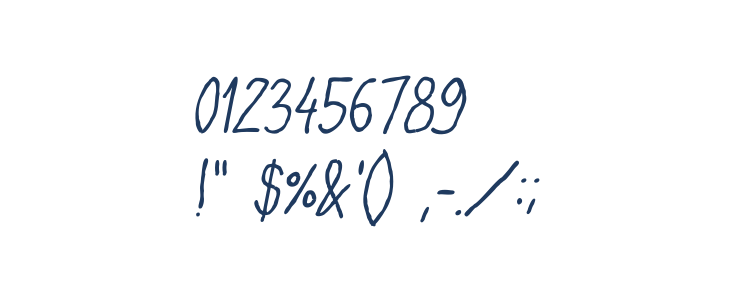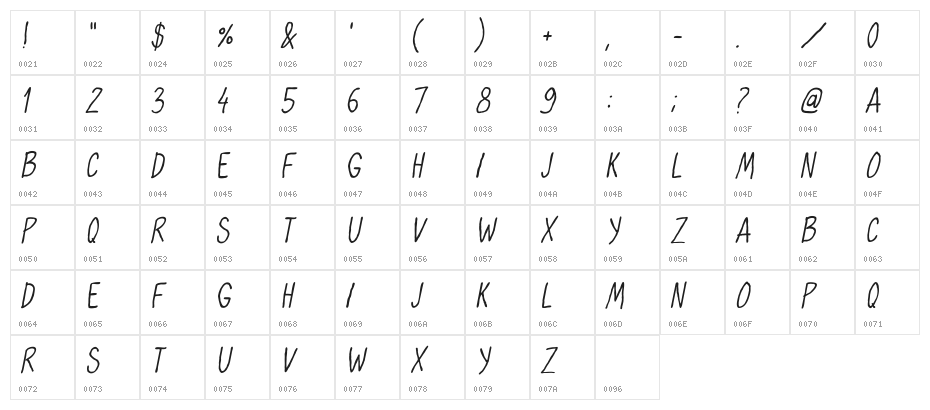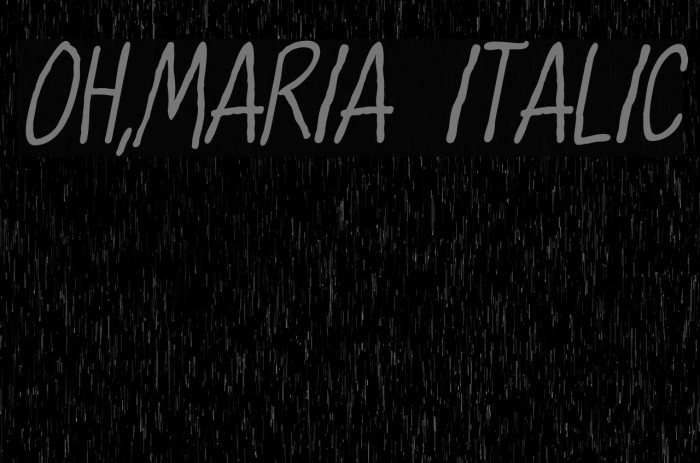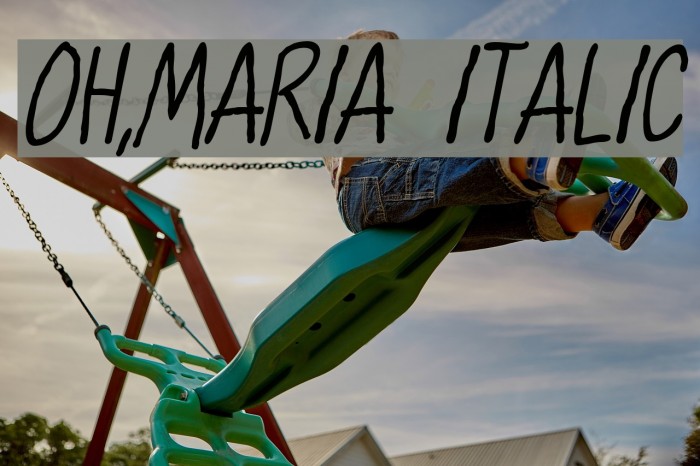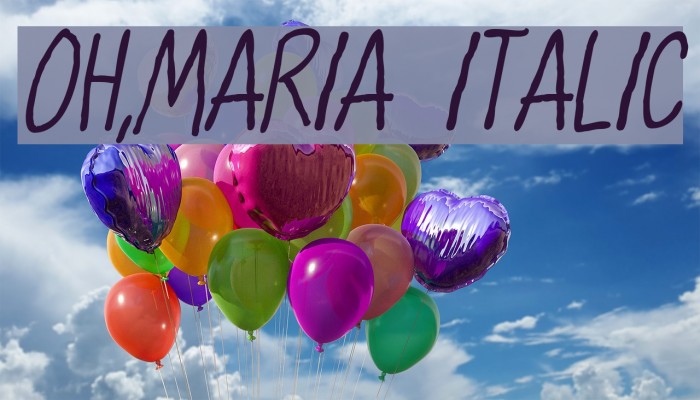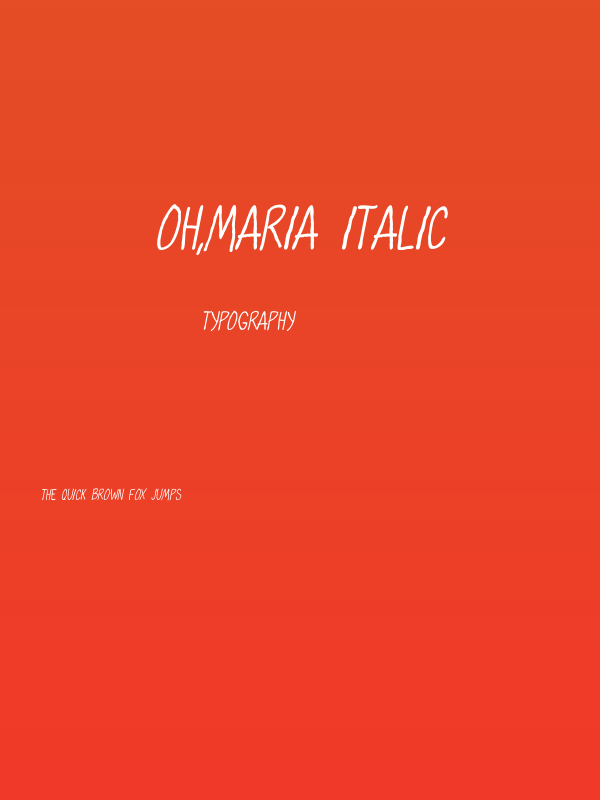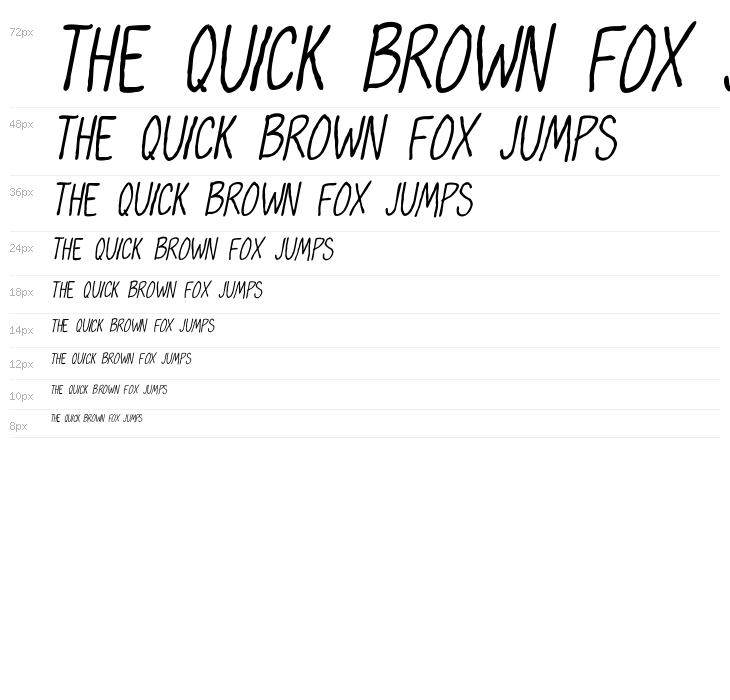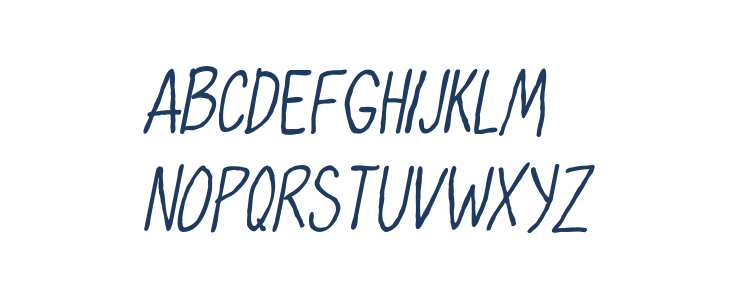
Oh,Maria Italic Font
Oh,Maria Italic Description
This font exhibits a lively and dynamic handwritten style, characterized by its slanted, italicized form. The letters are crafted with a casual, yet deliberate stroke, giving it a personal and informal touch. The uppercase and lowercase letters maintain a consistent flow, with rounded edges and slight variations in stroke thickness that add to its charm. Numbers and special characters are designed with the same playful and energetic flair, making them easily legible while retaining the font's unique personality. This font is perfect for projects that require a touch of individuality and creativity.
| Proposed Projects | Ideal for greeting cards, personal branding, creative invitations, and playful posters. |